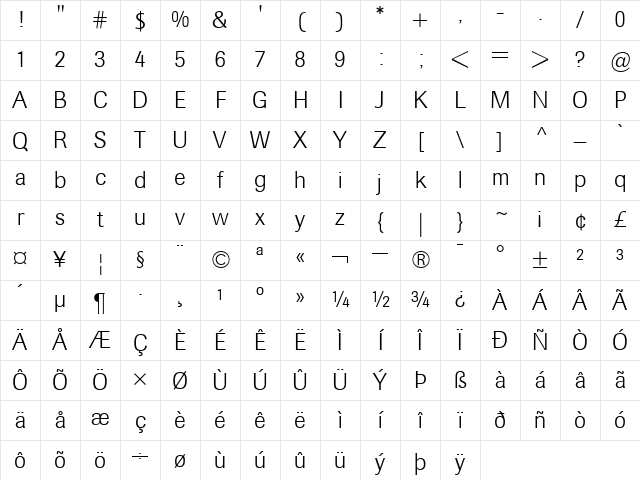
BertholdImago-Light Light
Design Context for BertholdImago-Light
BertholdImago-Light is a composed and adaptable typeface that performs quietly and consistently across a wide range of design contexts. Its slender proportions lend an understated elegance to any composition.